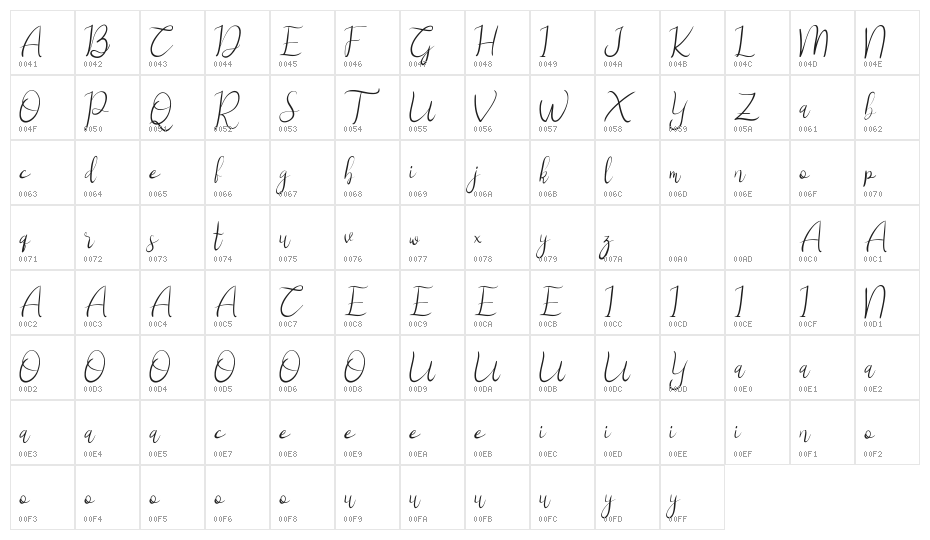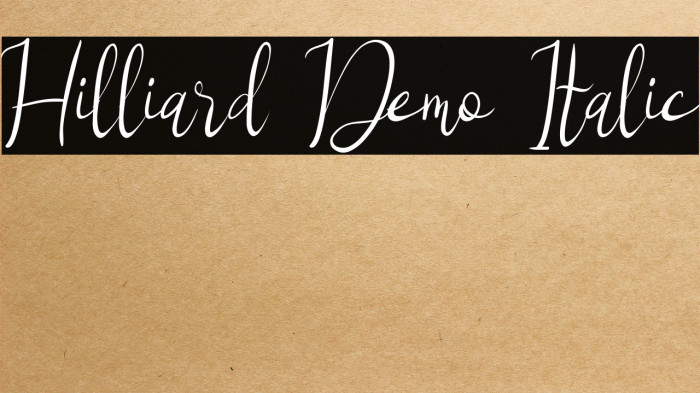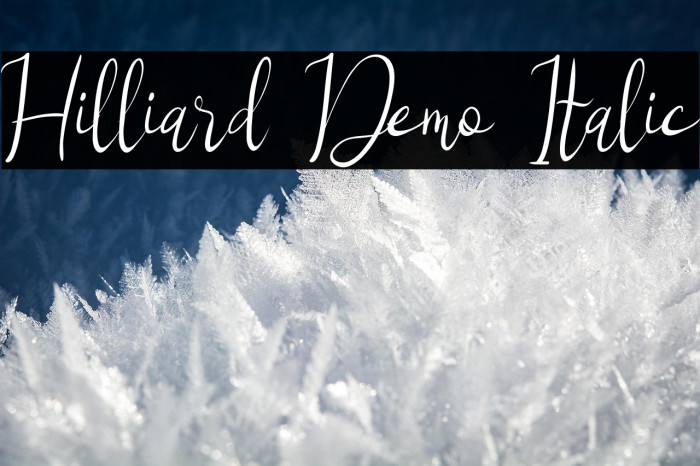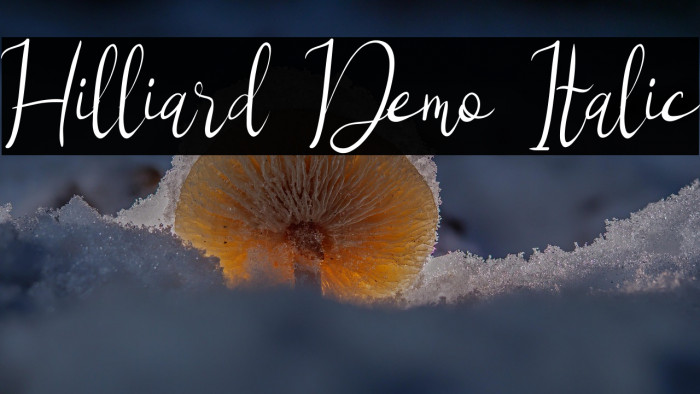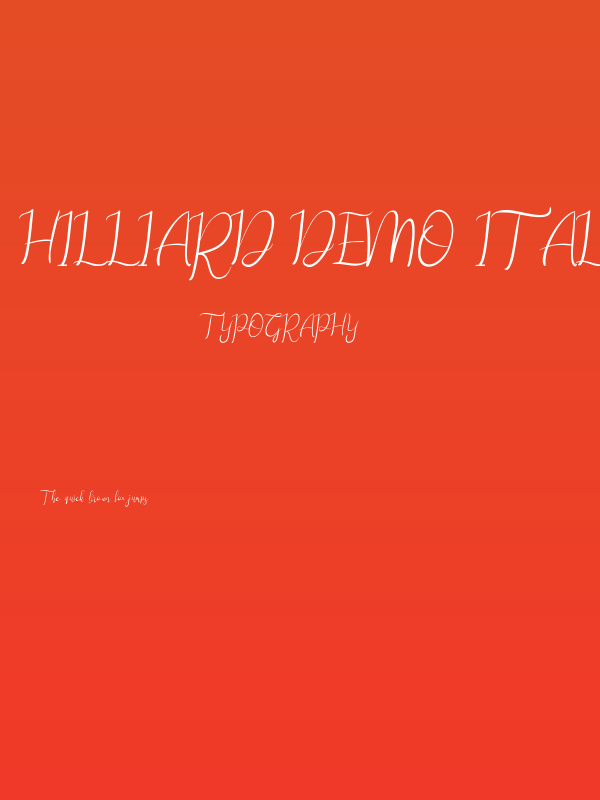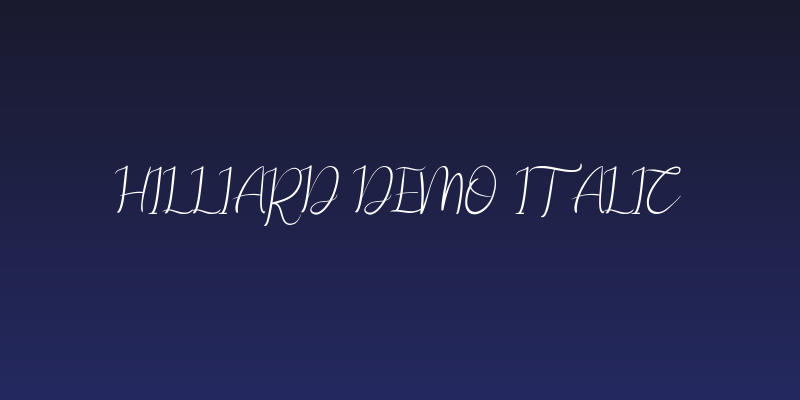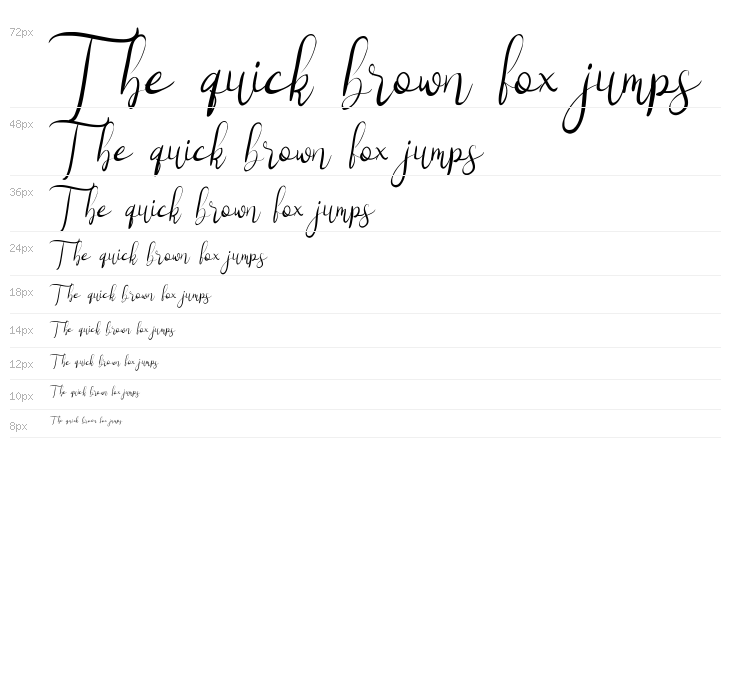
Hilliard Demo Italic Font
Hilliard Demo Italic Description
This font features an elegant and flowing script style, characterized by its smooth, cursive strokes and graceful curves. The uppercase letters are tall and slightly elongated, giving a sophisticated and airy appearance. The lowercase letters maintain a consistent flow, with some characters featuring distinctive loops and swashes that add a touch of flair. The overall design is delicate yet confident, making it suitable for formal and decorative purposes. The italic nature of the font enhances its fluidity, creating a sense of movement and elegance. This font is ideal for projects that require a touch of sophistication and style, such as invitations, branding, and editorial design.
| Overall Style | Elegant, Decorative |
| Use Case | Headlines, Invitations, Branding |
| Proposed Projects | Ideal for wedding invitations, elegant branding, editorial design, and decorative projects. |